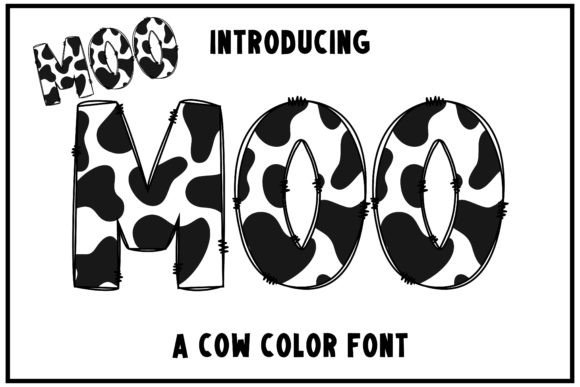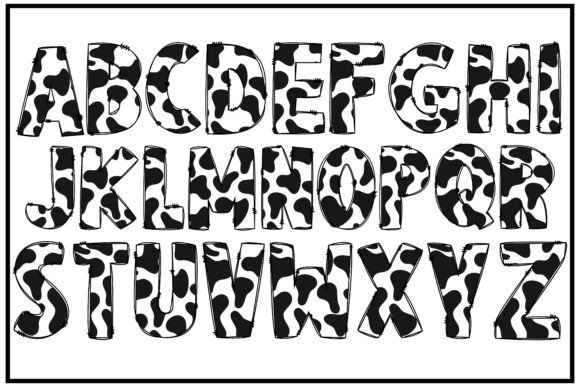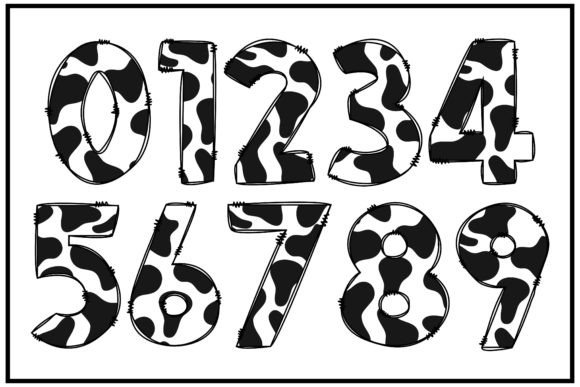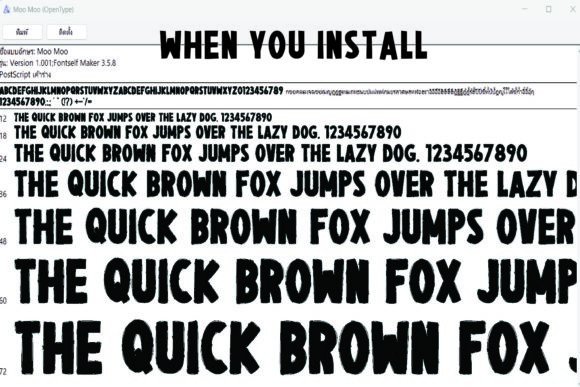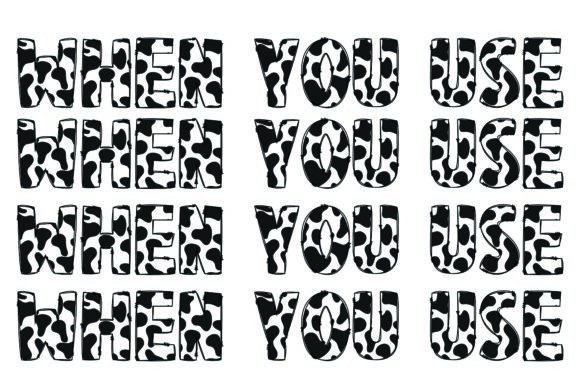
Moo Moo Font
About Moo Moo Font
Moo Moo is an adorable and playful color font that will bring a delightful touch to your designs. With its charming and authentic feel, this font is perfect for creating a wide range of projects that need a cute and fun aesthetic.
One of the great features of Moo Moo is its versatility. You can use it to design gorgeous invitations for various occasions, such as birthdays, baby showers, or even themed parties. The playful nature of the font will add a whimsical and cheerful vibe to your invitations, making them truly special.
For stationary art, Moo Moo can be a fantastic choice. Whether you’re creating notepads, letterheads, or stickers, this font will infuse your stationary with a sense of joy and creativity. The vibrant colors and playful letterforms will make your stationary stand out and bring smiles to those who receive it.
When it comes to social media posts, Moo Moo can help you create eye-catching and engaging content. Whether you’re designing graphics for promotions, announcements, or quotes, this font will add a touch of playfulness and charm to your posts, making them more appealing to your audience.
Greeting cards are another area where Moo Moo shines. Its cute and fun style is perfect for conveying warm wishes and sentiments. Whether it’s a birthday, holiday, or any special occasion, Moo Moo will add a lovely and memorable touch to your greeting cards, making them truly heartwarming.
Embrace the authentic feel and the whimsical nature of Moo Moo and let your creativity soar. Explore the various applications mentioned above, and discover how this cute and fun color font can elevate your invitations, stationary art, social media posts, and greeting cards. Enjoy the process of designing with Moo Moo and create beautiful and memorable creations that spread joy and happiness.